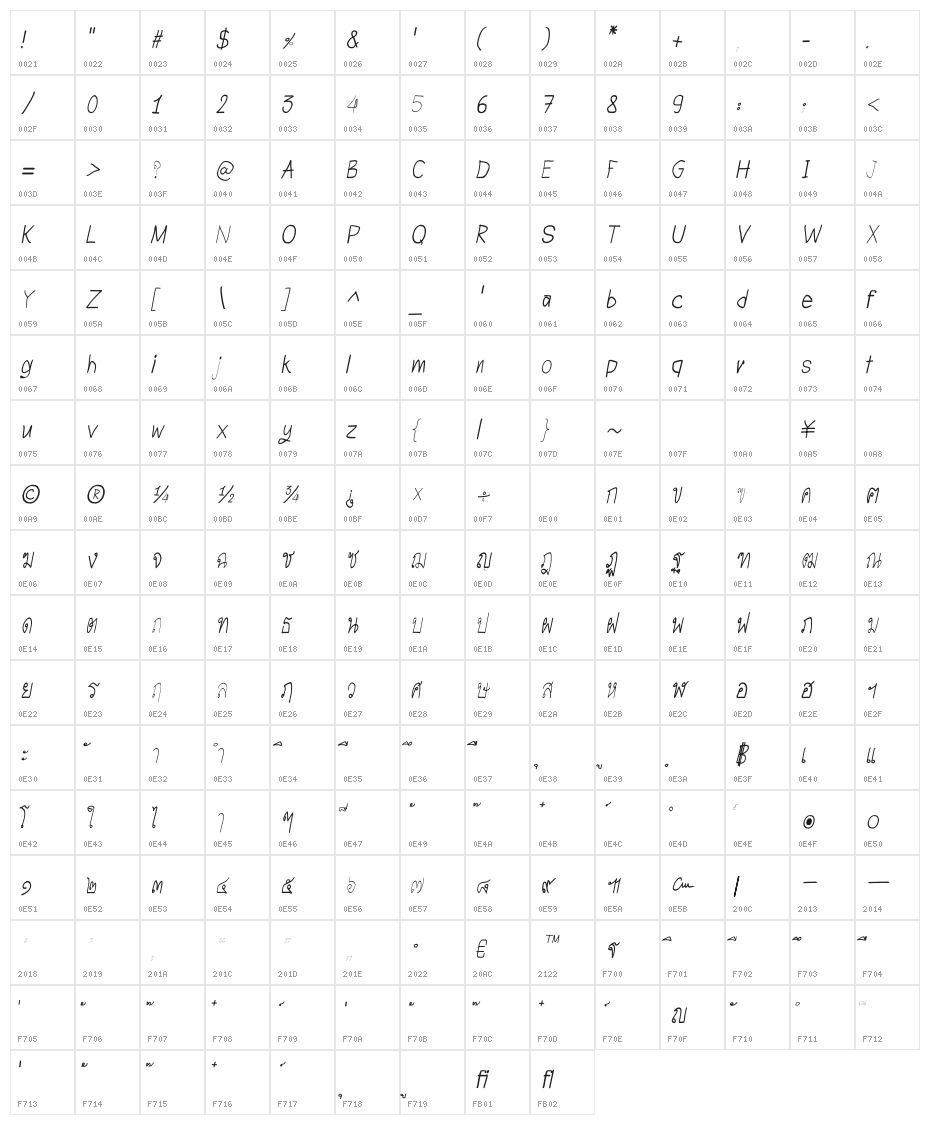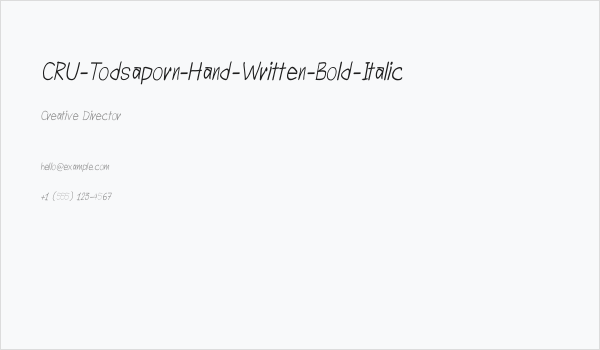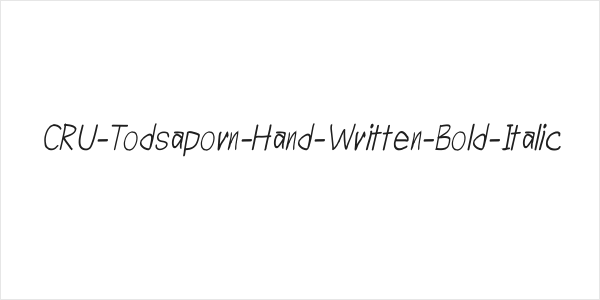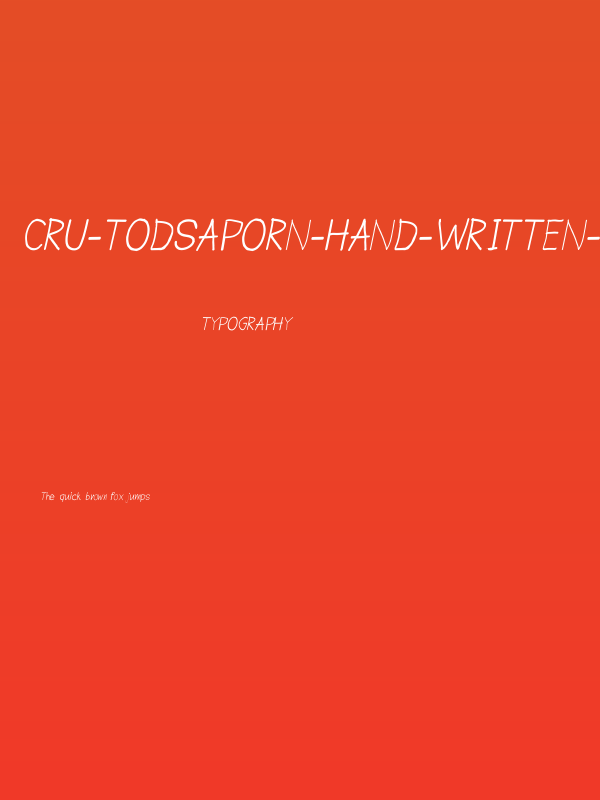
CRU-Todsaporn-Hand-Written-Bold-Italic Font
CRU-Todsaporn-Hand-Written-Bold-Italic Description
This font features a hand-drawn aesthetic with a bold and italicized style, giving it a casual yet expressive appearance. The letters are slightly slanted, adding a dynamic flow to the text. Each character is unique, with varying stroke thickness that mimics the natural variations of handwriting. The uppercase letters are tall and narrow, while the lowercase letters maintain a consistent height, creating a harmonious balance. Numbers and special characters are crafted with the same attention to detail, ensuring a cohesive look across all elements. The overall design is playful and informal, making it suitable for projects that require a personal touch.
Overall StyleCasual
Use CaseHeadlines, Logos, Informal Text
Proposed ProjectsIdeal for greeting cards, personal invitations, casual branding, and social media graphics.